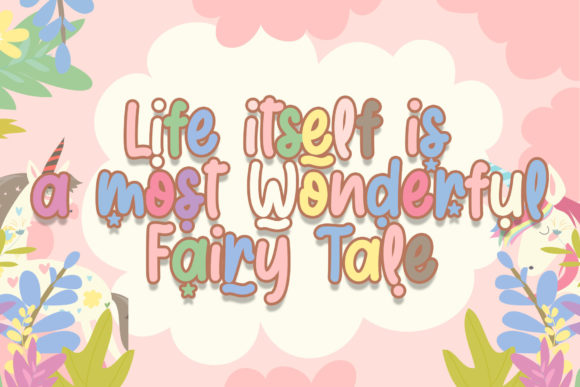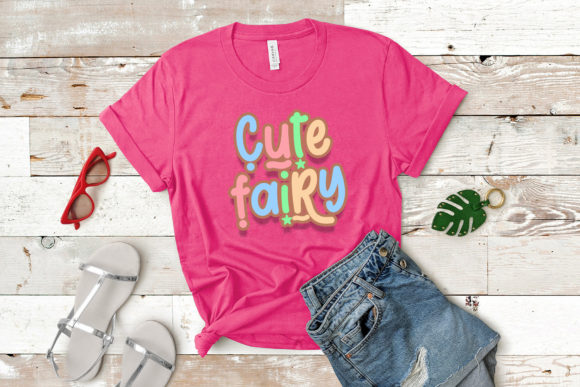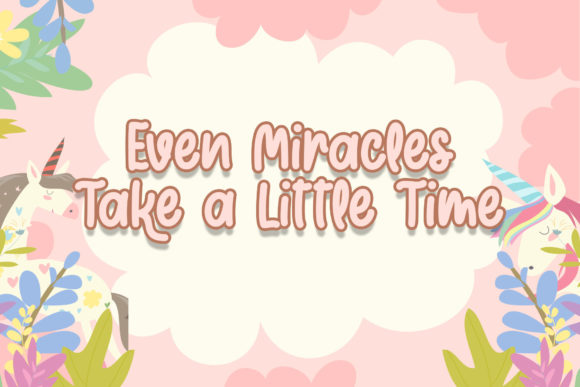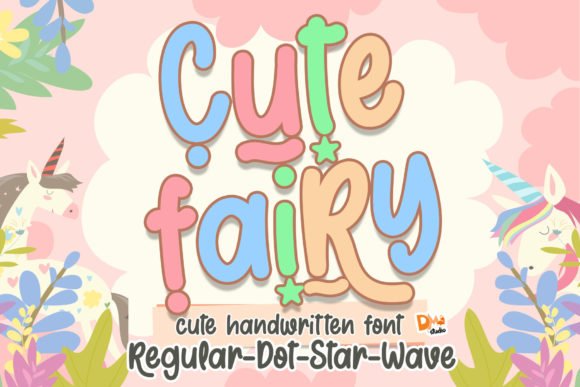
Introduction to Cute Fairy Font
Cute Fairy is a cute and simple lettered handwritten font that can be used for all chalkboard quotes or teaching material.
Its authentic look will add a personal and realistic feel to your designs .
Key Features of Cute Fairy Font
Why Choose Cute Fairy Font?
Cute Fairy Font offers exceptional quality and versatility, making it a valuable addition to your design toolkit. Whether you’re creating for personal projects or commercial use, Cute Fairy Font delivers professional results.